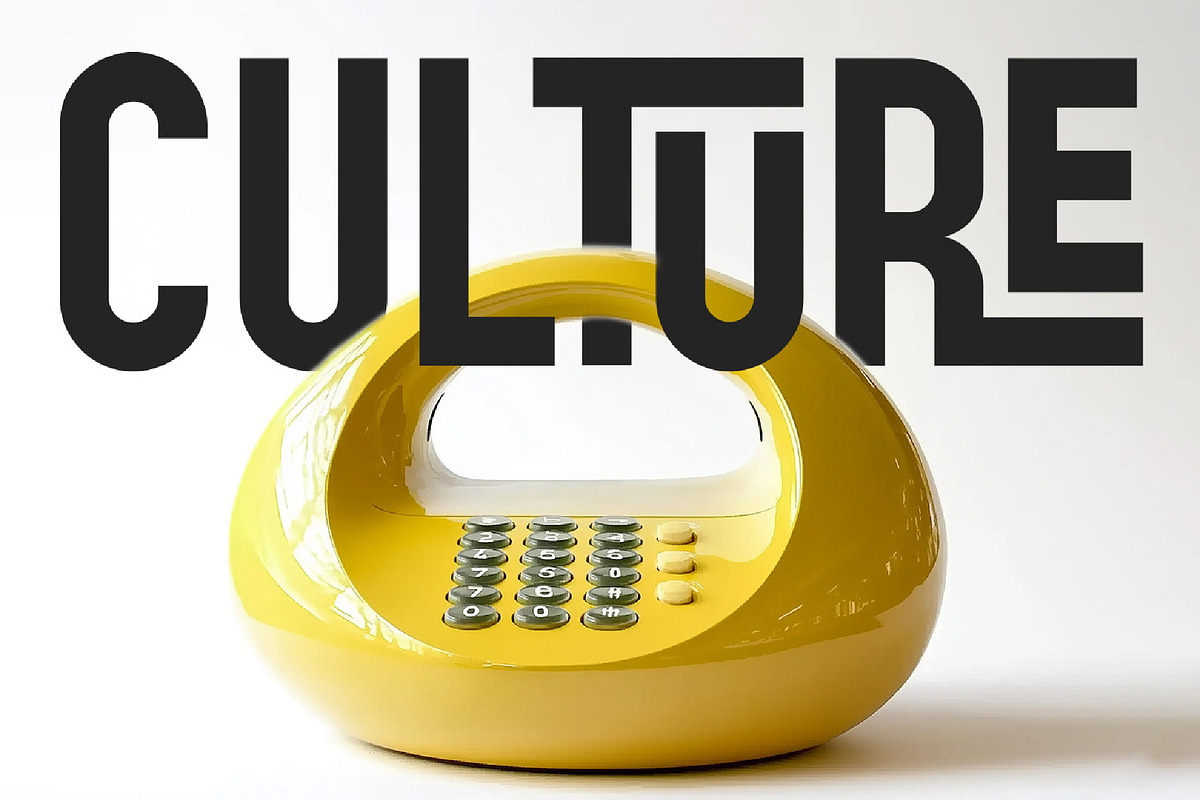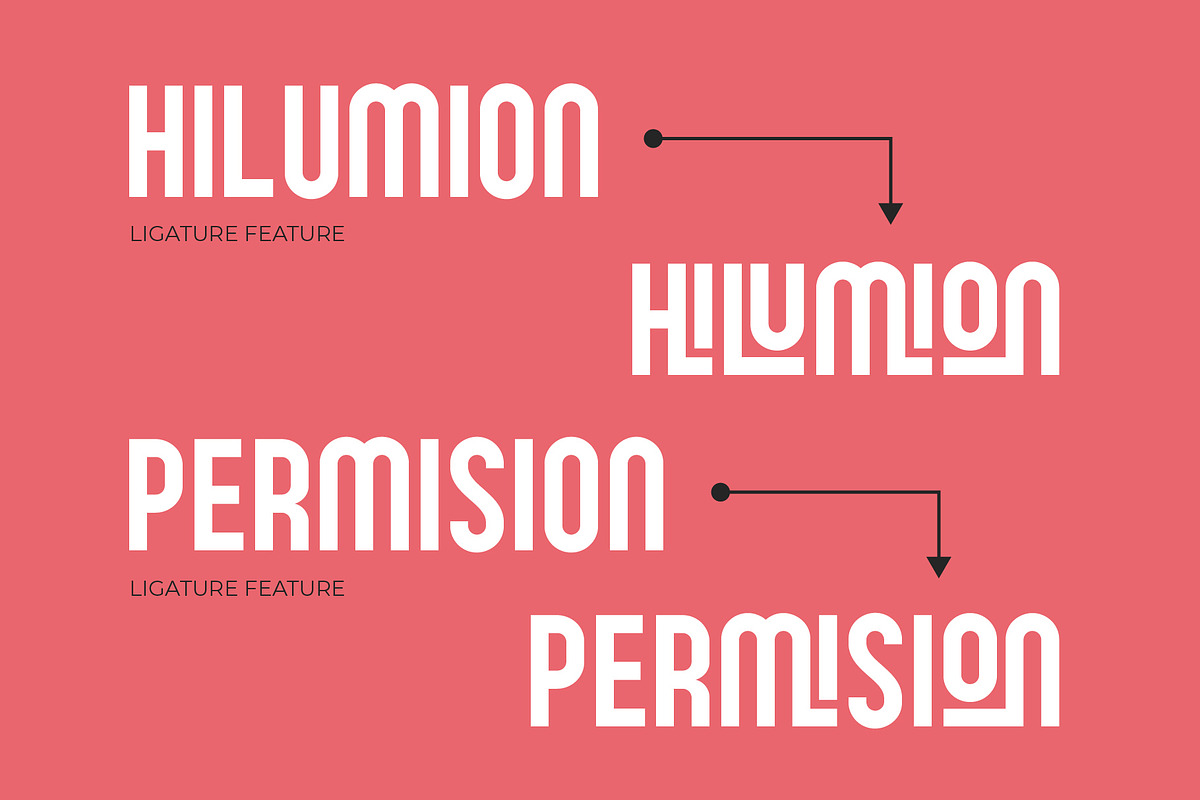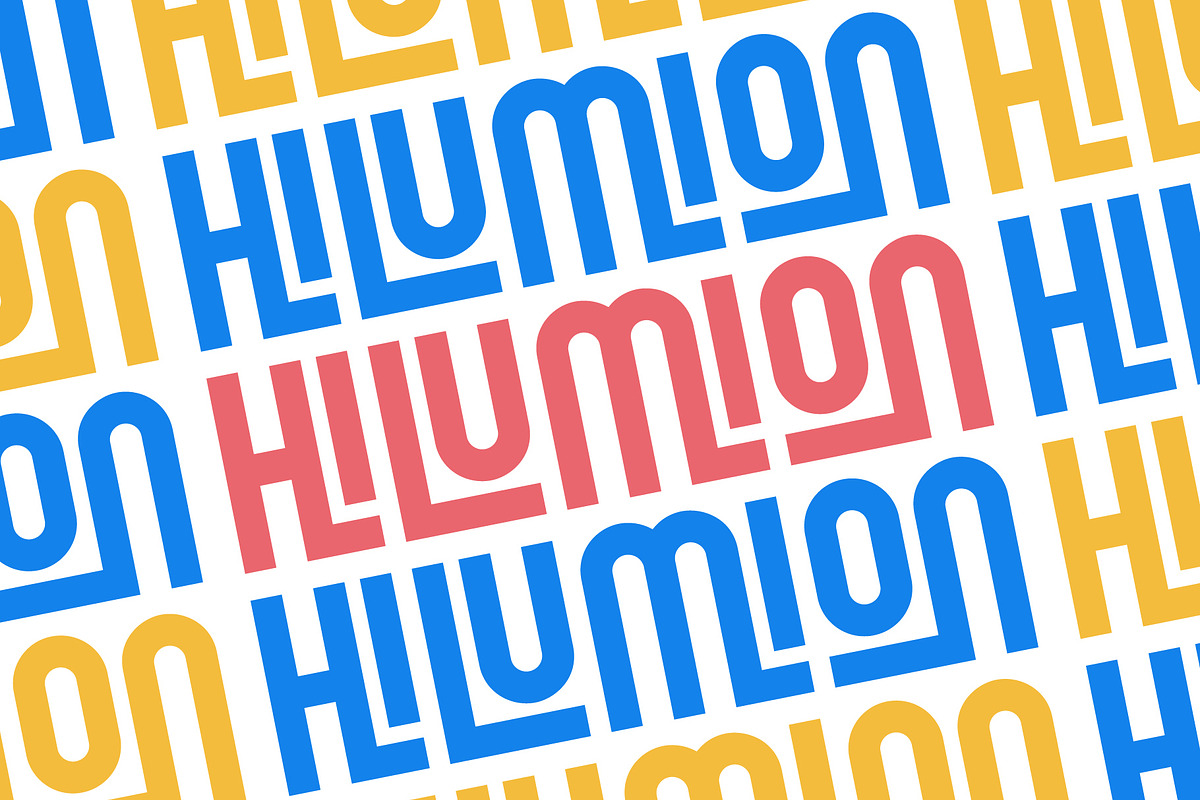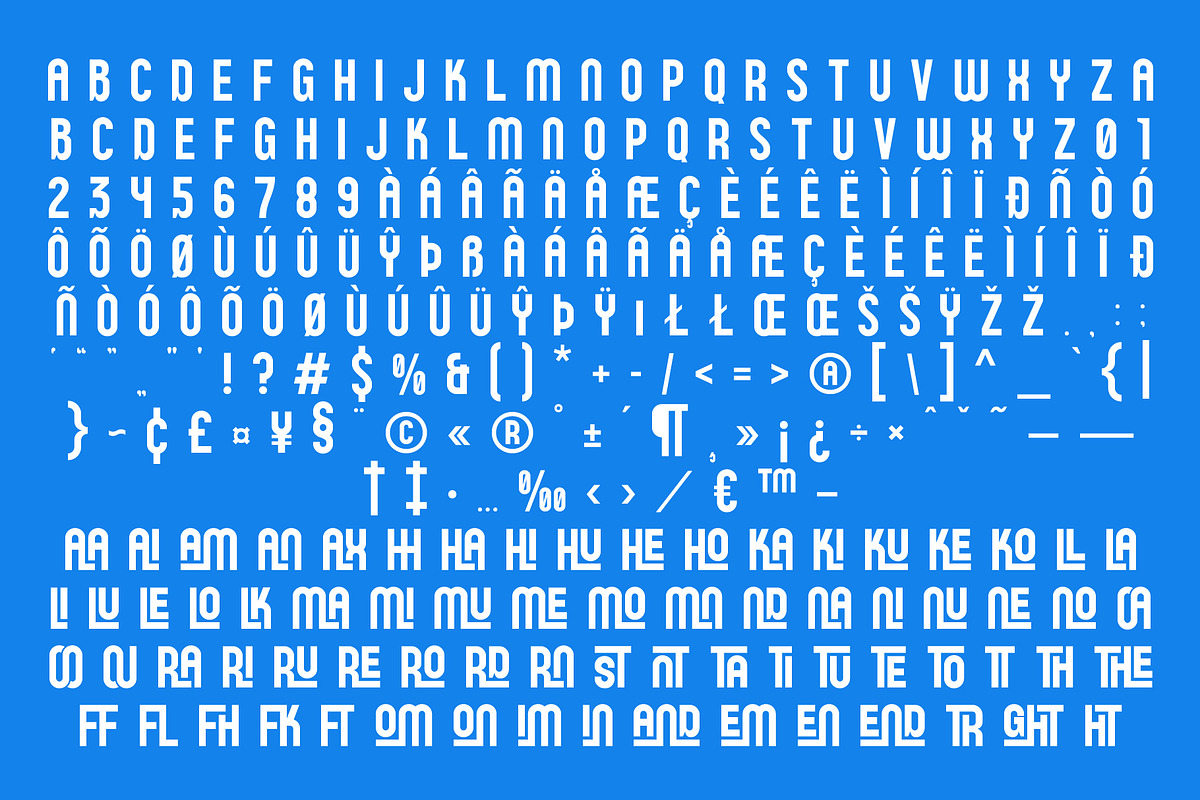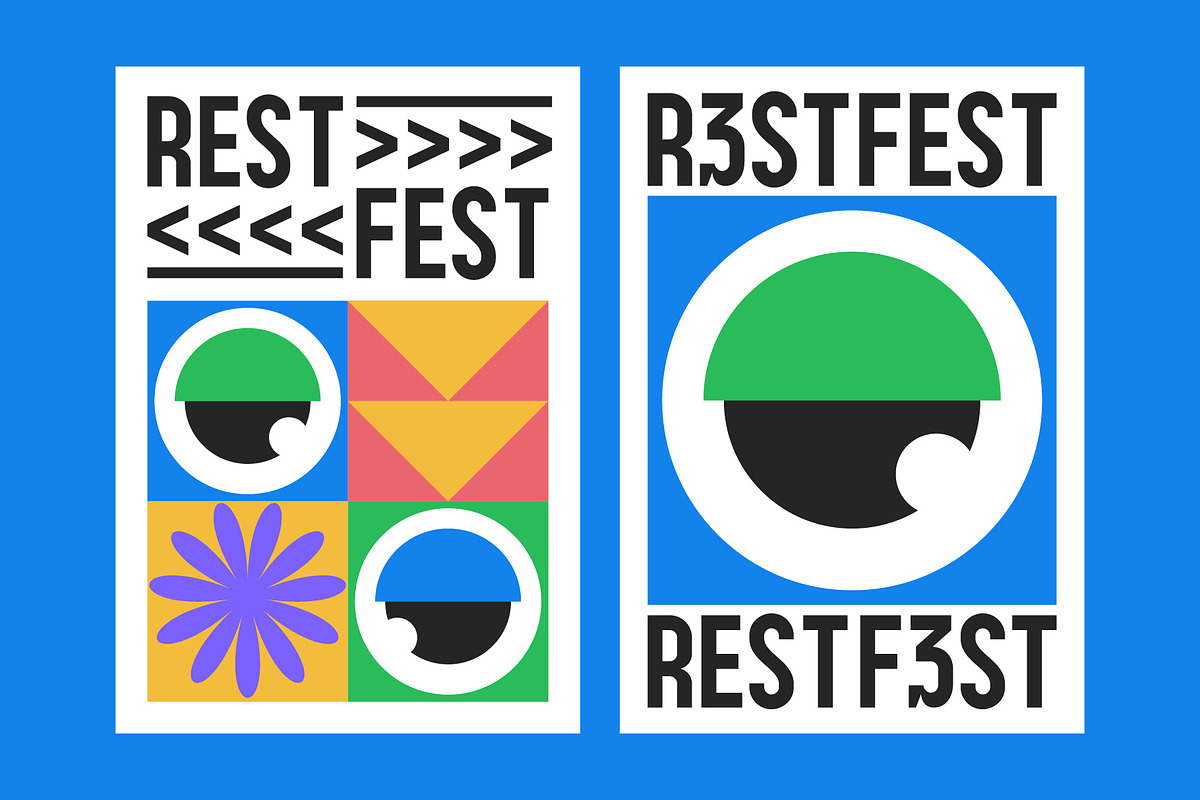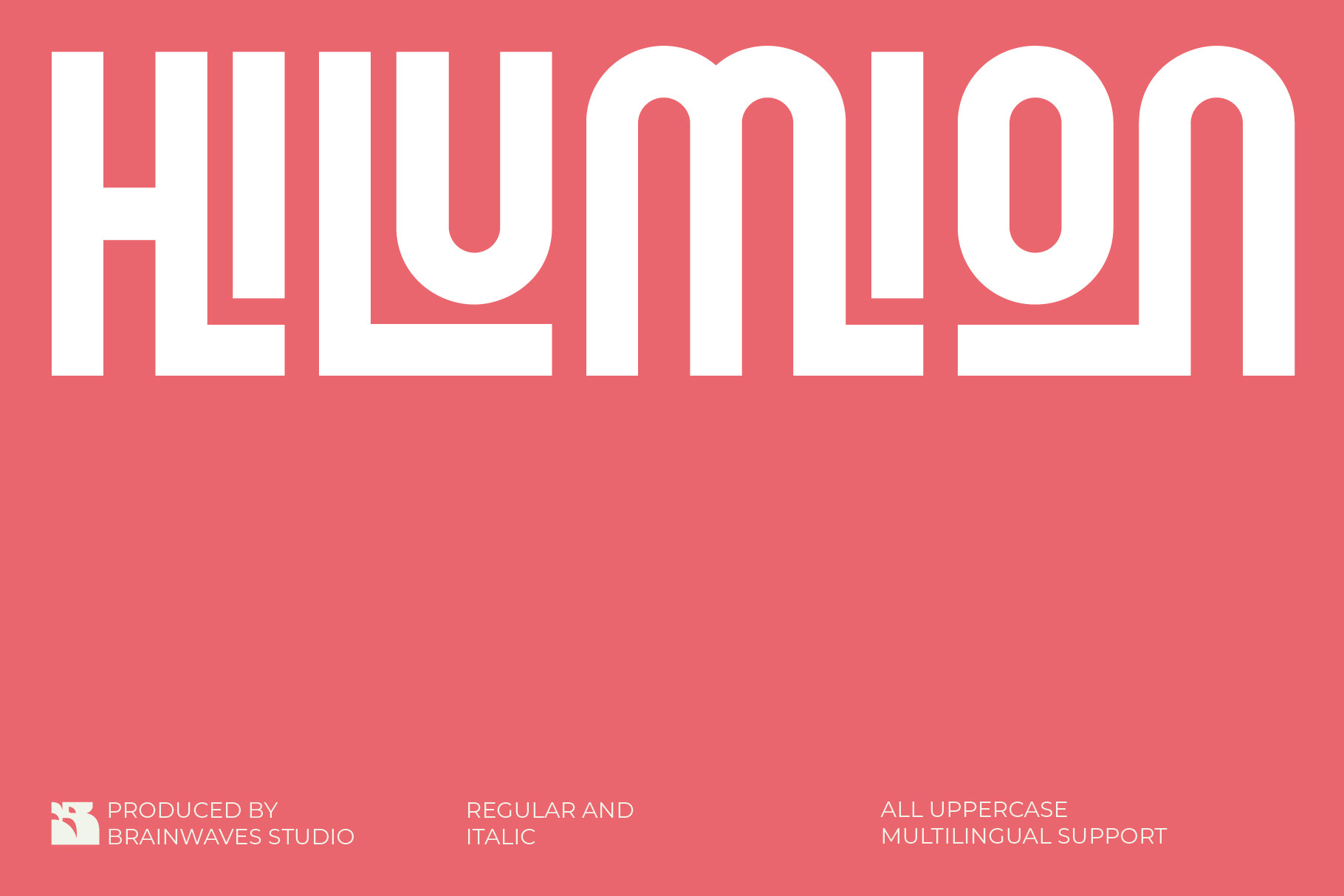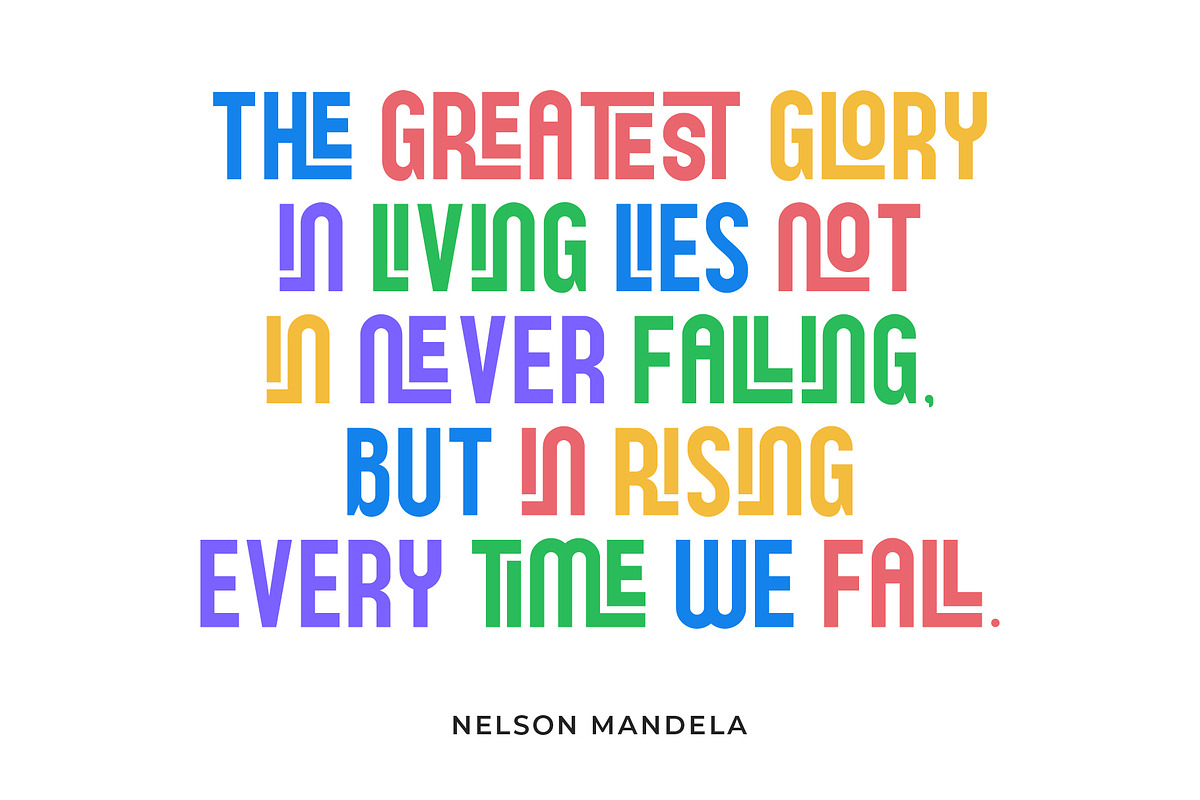
Hilumion - Sans Serif Display Font
A bold and stylish sans serif display font that combines retro charm with modern aesthetics. Its clean lines and geometric structure make it the perfect choice for designs that need to stand out while maintaining a vintage edge.
Whether you're creating bold headlines, crafting nostalgic designs, or building a unique brand identity, Hilumion is here to make a statement.
Bring your vision to life with this fresh retro font!